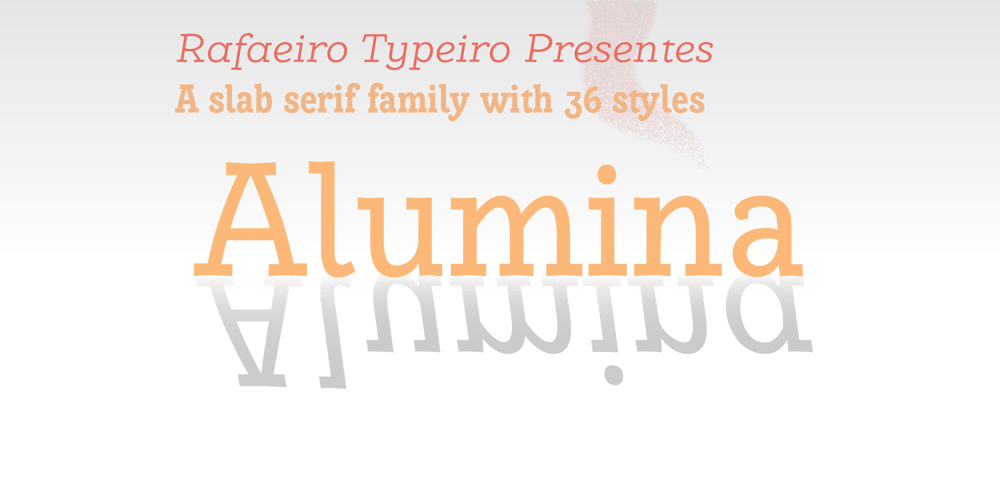
Alumina
Alumina font
Alumina Font Family was designed by Rafael Ferreira and published by Rafaeiro Typeiro. Alumina contains 36 styles and family package options. Discover Alumina, a typeface that exudes elegance and authority. Its robust weights demand attention, while lighter variants display grace. From bold statements to subtle emotions, Alumina empowers your creativity effortlessly.Suitable for diverse mediums, Alumina remains legible and versatile. Unleash customization with OpenType features like ligatures and fractions. Embrace Alumina as your creative companion, sparking change and expression.